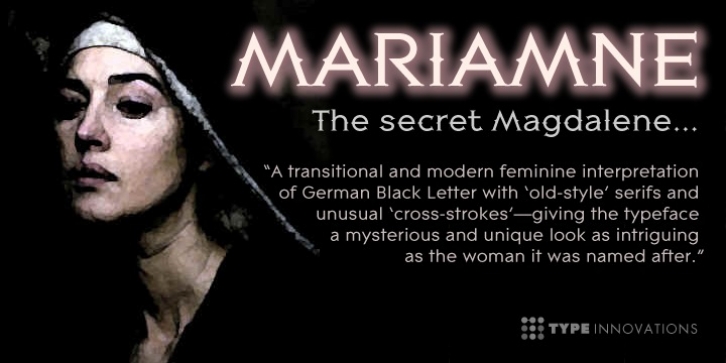
Publisher: Type Innovations
MARIAMNE was designed by Alex Kaczun and published by Type Innovations. MARIAMNE contains 1 style.
MARIAMNE is an original design by Alex Kaczun. It is an elegant, modern and traditional interpretation based on and modeled after his successful 'Contax Pro' and 'New Age Gothic' typeface series. As such, it has generous proportions with clean, crisp lines-ideally suited for easy reading and long lines of copy.
Alex felt that the skeleton for 'Contax' was perfectly suited to transform the design into a modern version of 'old-style', somewhat reminiscent of German Black Letter. Numerous modifications where made to the body proportions, stems and shapes. True 'old-style' serifs and unusual 'cross-strokes' where added for a touch of distinction. The 'cross-strokes' where added at exactly visual mid-point on the overall heights. This gives the typeface a romantic, female-like quality to the overall design. Strong, yet delicate. Visually stimulating in appearance and function. The result is a truly unique transitional and modern design.
Unlike other typefaces, MARIAMNE incorporates uniform stems throughout the capitals, lower case and figures. This gives the design a uniform appearance in overall color and strength. There is a perfect visual balance between inter-letter spacing, stem weights and proportions. The accents are equally large, bold and command attention. This font includes a large 'Pro' character set, which supports most Central European and many Eastern European languages. As a result, the design is ideally suited for display copy as well as text composition. In the near future, Alex plans to expand the typeface series to include a light and heavy weight, along with true italics.
Font Family: MARIAMNE